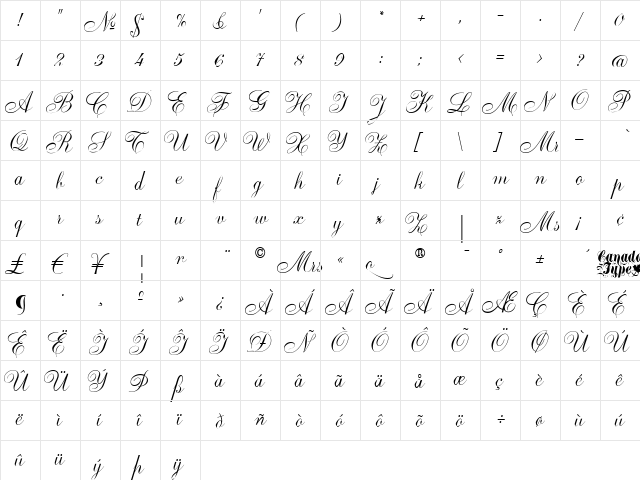
Ambassador Script Regular
| Foundry | Canada Type |
| Designer | Rebecca Alaccari |
Design Context for Ambassador Script Typeface
Ambassador Script brings a calligraphic fluidity to the page — its connecting strokes and expressive curves give it an unmistakably human quality.
Font Pairing: Combine Ambassador Script with a simple geometric sans for maximum contrast — the tension between flowing curves and clean structure is a classic typographic pairing.
Pro Tip: Use Ambassador Script for short runs of text — names, titles, or taglines. Extended body copy in script faces tires the eye quickly.